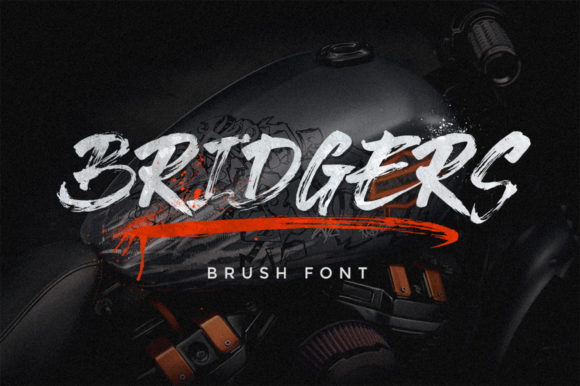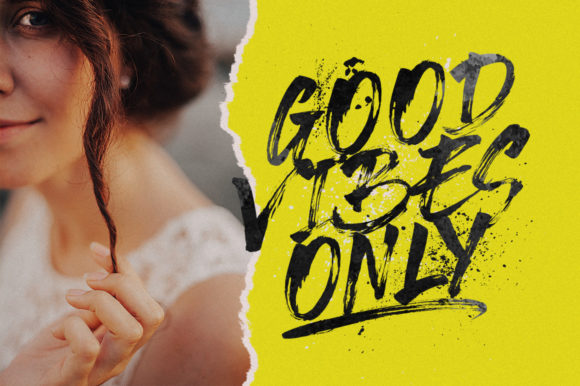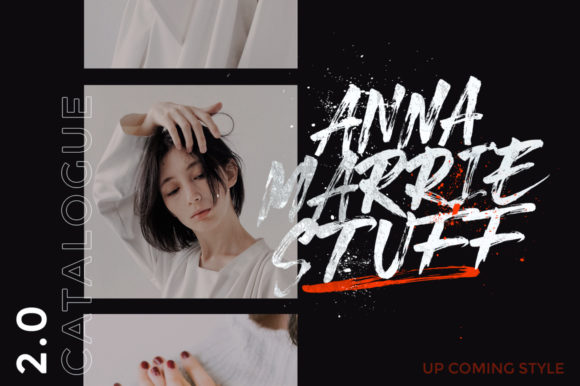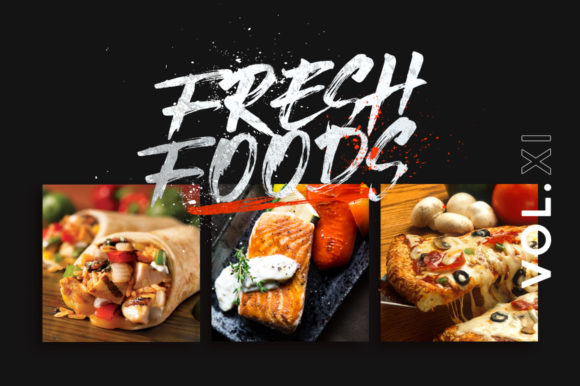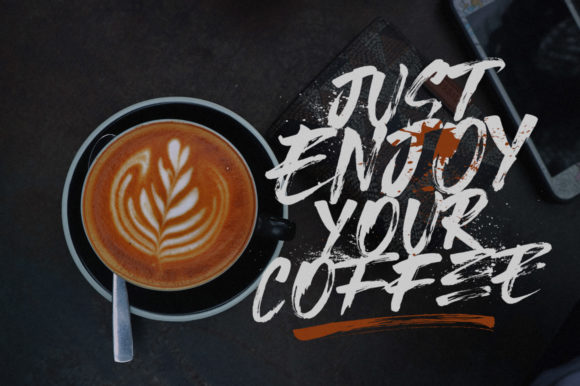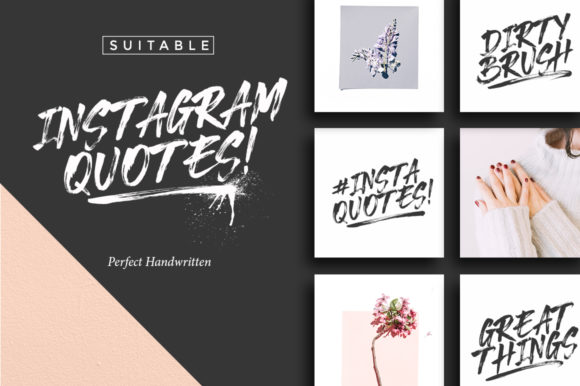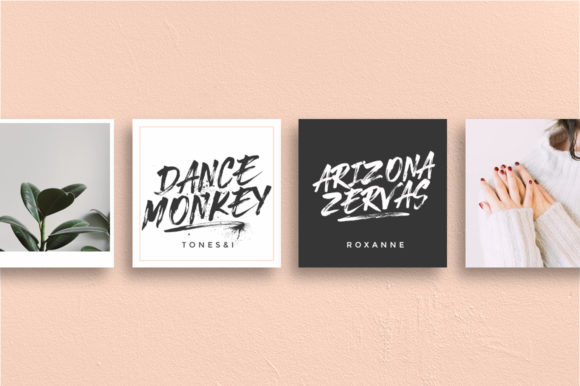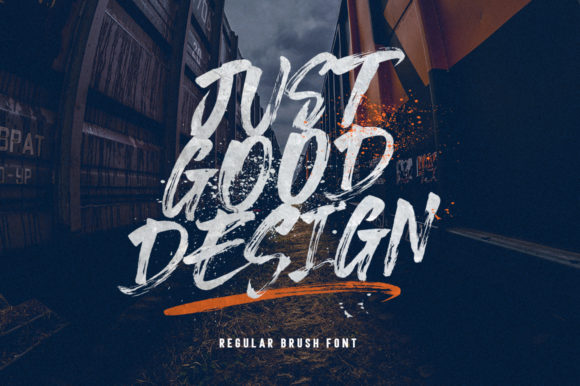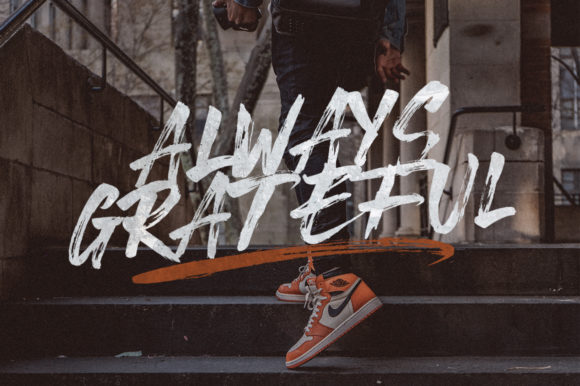
Bridgers Brush Font
About Bridgers Brush Font
Bridgers Brush is a powerful and fun handbrushed script with a unique feel. It will deliver any message with confident and style.